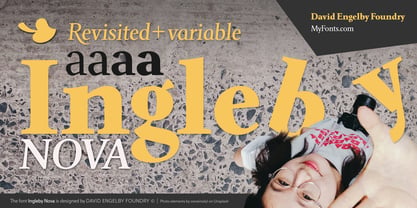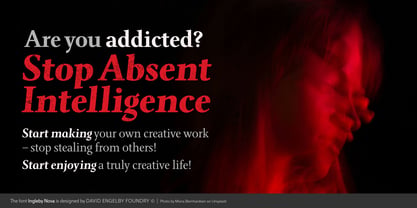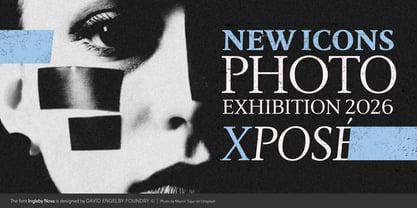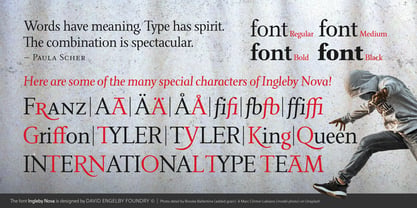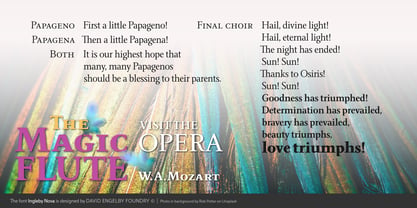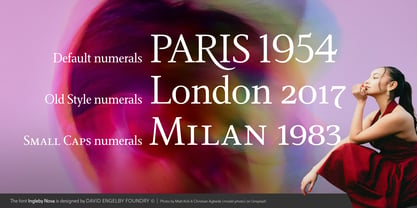
Ingleby Nova
by David Engelby Foundry
The Ingleby Nova Font Family was designed by David Engelby and published by David Engelby Foundry. Ingleby Nova contains 2 styles and family package options. More about this family
Ingleby Nova is revisited and slightly redesigned. The font now has two new weights: Medium and Black – and an ability to be used as a variable font. There are also added a lot of special characters to suit the needs for micro typographic details and aesthetic pleasing variations in both long paragraphs of texts as well as for titles and display design.
It's a sturdy work horse for your graphic design projects!
Designers: David Engelby
Foundry: David Engelby Foundry